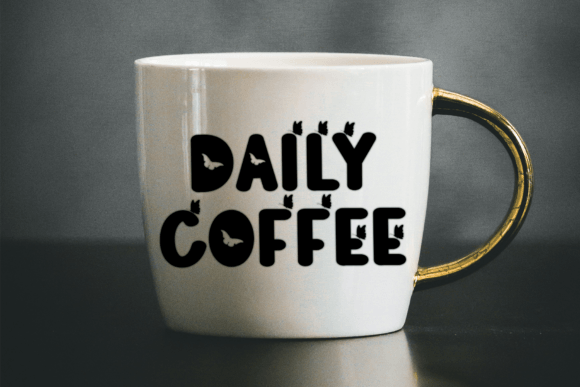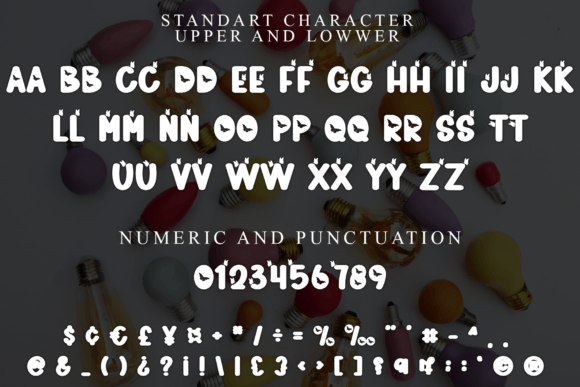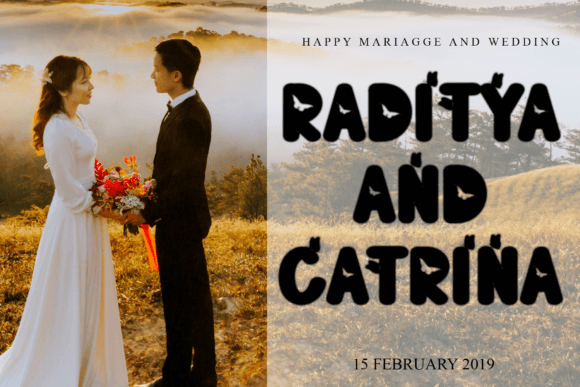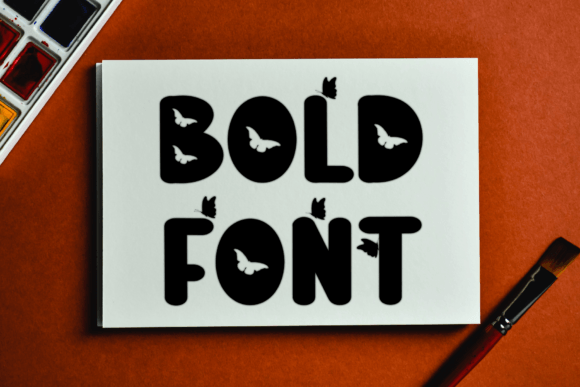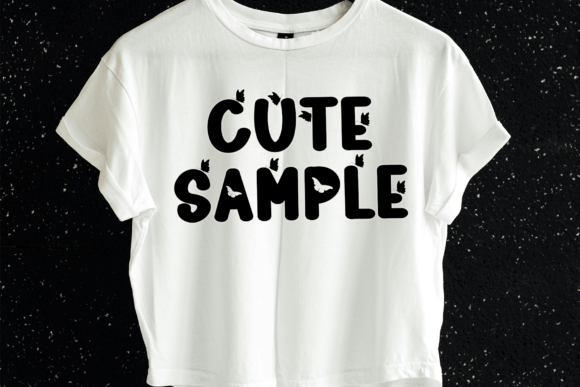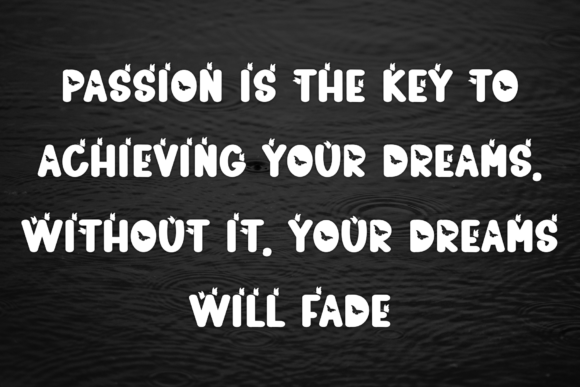
Introducing Butterflys Font: Add a Touch of Whimsy to Your Designs
Are you tired of using the same old fonts in your designs? Do you want to add a playful and cheerful touch to your text? Look no further than Butterflys Font! This delightful decorative font features a small butterfly nearby each letter, bringing a light and airy feel to your designs. Perfect for designers and crafters who want to add a nature-inspired style to their work, Butterflys Font is sure to take your creations to the next level.
The Unique Charm of Butterflys Font
Butterflys Font is a one-of-a-kind typeface that combines elegant lettering with adorable butterflies. Each letter is carefully crafted to feature a tiny butterfly hovering nearby, creating a sense of movement and playfulness. The font’s design is perfect for adding a touch of whimsy to your designs, making it ideal for projects that require a fun and carefree vibe.
Perfect for Nature-Inspired Designs
If you’re a designer or crafter who loves working with nature-inspired themes, Butterflys Font is a must-have addition to your font collection. The font’s butterfly accents evoke the beauty of the natural world, making it perfect for designs that feature floral patterns, greenery, or other outdoor elements. Whether you’re creating a logo, greeting card, or social media graphic, Butterflys Font is sure to add a charming touch to your work.
Butterflys Font is incredibly versatile, making it suitable for a wide range of design projects. Here are just a few ideas to get you started:
- Create a whimsical logo for a children’s brand or outdoor company
- Design a set of playful greeting cards for spring or summer
- Develop a social media graphic for a gardening or conservation organization
- Add a touch of personality to your website or blog with a custom header or title
Key Features of Butterflys Font
Here are some key features that make Butterflys Font so special:
- Playful and decorative design featuring a butterfly nearby each letter
- Perfect for designs that require a fun, nature-inspired style
- Carefully crafted to ensure clear readability and elegant lettering
- Suitable for a wide range of design projects, from logos to social media graphics
Get Ready to Take Your Designs to New Heights
- Is Butterflys Font easy to read?
- Yes, Butterflys Font is designed to be clear and readable, making it perfect for use in a variety of design projects.
In conclusion, Butterflys Font is a unique and charming decorative font that’s perfect for designers and crafters who want to add a playful, nature-inspired touch to their work. With its elegant lettering and adorable butterfly accents, this font is sure to bring a smile to your face and inspire your creativity. So why wait? Download Butterflys Font today and start creating something truly special!